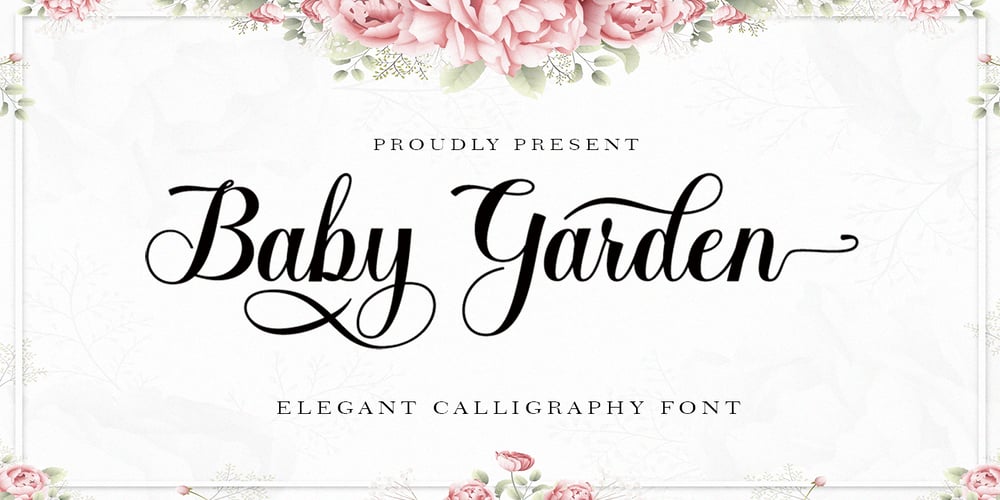
Baby Garden
Baby Garden font
Baby Garden Font Family was designed by Has Rizal and published by Hrz Studio. Baby Garden contains 1 styles and family package options. Baby Garden is a beautiful light handwritten font with a unique feel and a stunning impact. It will add a luxury spark to any design project that you wish to create! This font is PUA encoded which means you can access all of the amazing glyphs and ligatures with ease!